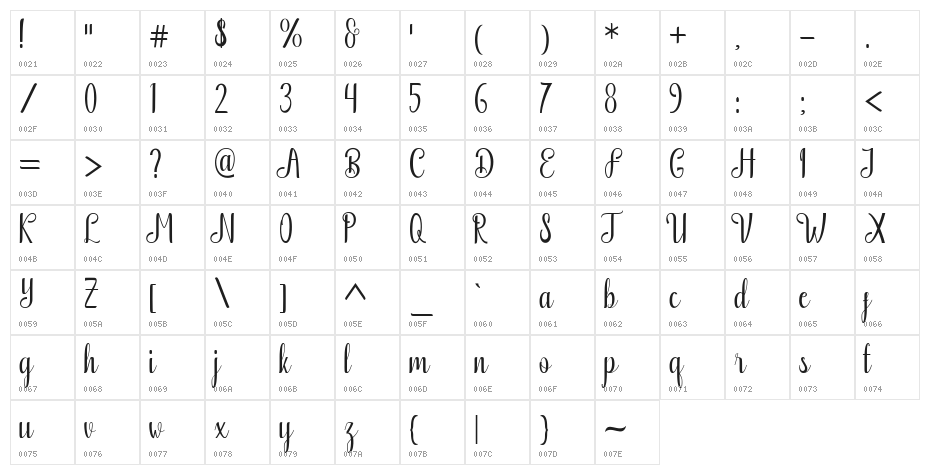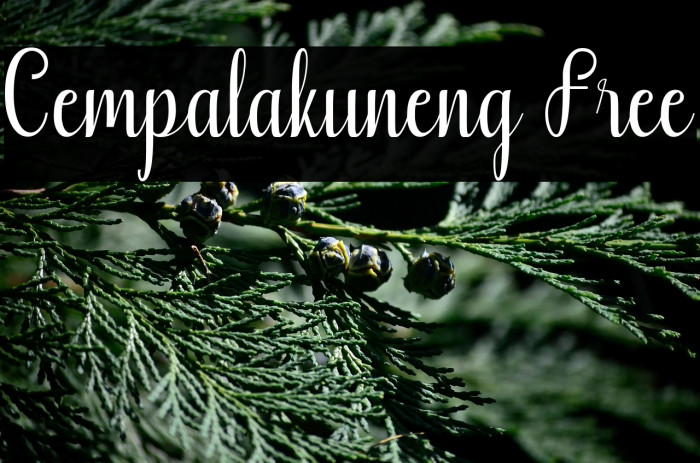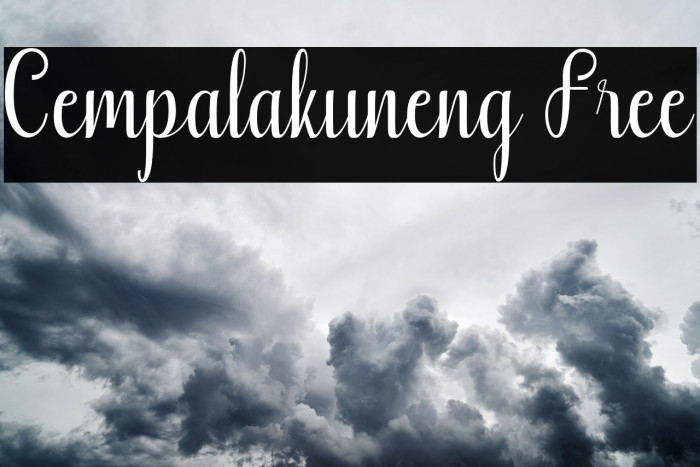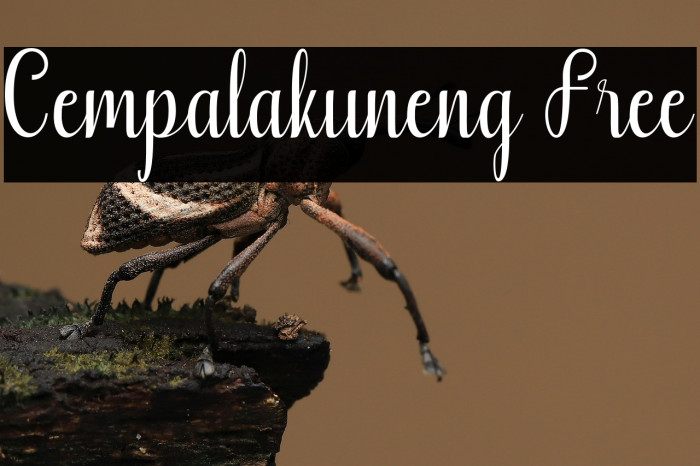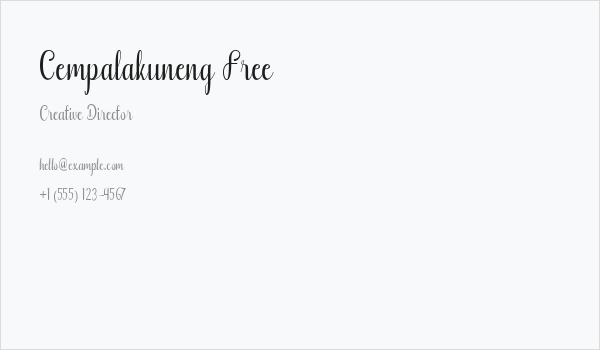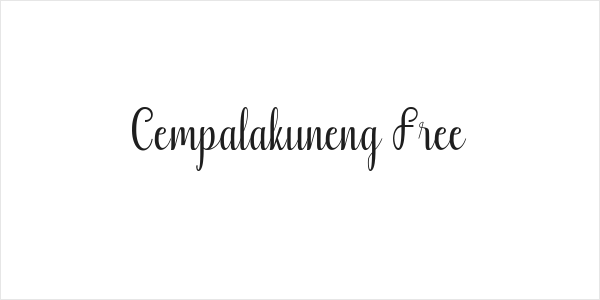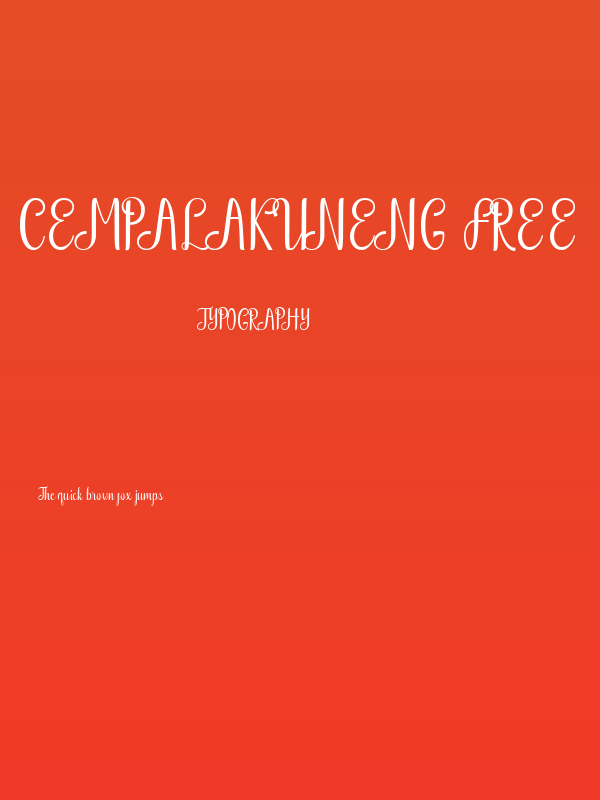
Cempalakuneng Free Font
Cempalakuneng Free Description
This font features a playful and elegant script style with a modern twist. The uppercase letters are characterized by their tall, narrow forms and distinctive loops, giving them a whimsical yet sophisticated appearance. The lowercase letters maintain a consistent flow with smooth curves and a slightly slanted orientation, enhancing the font's graceful aesthetic. The numerals are clear and legible, with a slight flair that complements the overall design. Special characters are thoughtfully integrated, maintaining the font's cohesive style. This font's unique blend of elegance and playfulness makes it versatile for various creative applications.
| Proposed Projects | Ideal for wedding invitations, greeting cards, branding projects, and decorative quotes. |